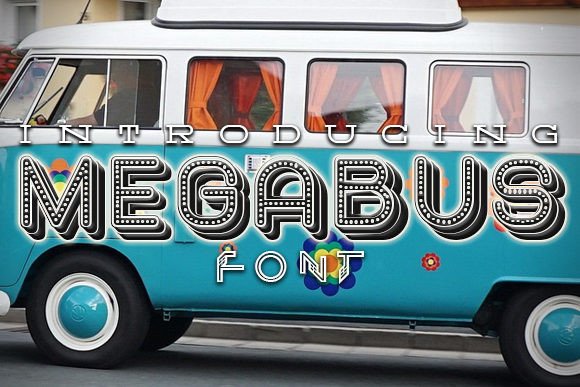
Megabus: A Retro Typeface with Modern Creativity
If you're on the lookout for a typeface that effortlessly blends nostalgia with contemporary flair, Megabus might just be your next favorite design tool. This retro-inspired font brings a unique character to any project it graces, making it ideal for creators who want to stand out without shouting. Whether you're designing posters, flyers, logos, or web content, Megabus adds an artistic edge that’s both eye-catching and versatile.
Megabus is more than just a throwback to the past—it's a well-crafted font that combines boldness with readability. Its retro aesthetic includes subtle imperfections and hand-drawn qualities that give it warmth and personality. Unlike many other vintage-style fonts that can feel too ornate or difficult to read at smaller sizes, Megabus maintains a balance between charm and clarity, which makes it suitable for a wide range of applications.
One of the standout features of Megabus is its adaptability. The font works equally well in digital formats as it does in print, allowing designers to use it across multiple platforms without compromising quality. It also supports a broad set of characters, including ligatures and alternate glyphs, giving users creative control over how they present their text.
Retro Meets Modern
While Megabus draws from classic typography styles—think 1950s signage and mid-century magazine layouts—it’s been optimized for modern usage. This means it’s not only visually appealing but also functional. Designers can rest assured that the font will render cleanly on screens and scale beautifully for large-format printing.
With its distinctive style, Megabus opens up a world of creative possibilities. Here are some practical ways to incorporate this font into your work:
Imagine a local jazz club promoting an upcoming performance. Using Megabus for the event name gives the poster an authentic, old-school ambiance that complements the venue's vibe. Similarly, a food blogger launching a new recipe series could use the font to create a themed banner that feels like it belongs in a 1960s diner menu.
For educators, Megabus can bring a fresh twist to classroom materials. A history teacher creating a presentation about the 1960s counterculture movement might find that using this font enhances the thematic consistency of their slides.
To get the most out of Megabus, consider these best practices:
1. Use Sparingly: While it’s tempting to go all-in with a bold font like Megabus, it’s most effective when used as an accent. Save it for headlines, call-to-action buttons, or key phrases to avoid overwhelming your audience.
2. Pair Thoughtfully: Complement Megabus with a neutral, easy-to-read font for body copy. Think Helvetica, Arial, or Lato. This contrast helps guide the viewer’s eye and keeps the message clear.
3. Play with Color: Megabus really comes alive when paired with muted earth tones or bright retro colors. Try mustard yellow, burnt orange, or deep navy blue to enhance its vintage appeal.
4. Experiment with Layout: Because of its dynamic nature, Megabus looks great when used creatively in layout design. Consider rotating it slightly, layering it with textures, or even combining it with hand-drawn elements.
Depending on your target audience, you can adjust how you apply Megabus. For example:
When working with Megabus, keep these tips in mind to ensure your designs remain effective and professional:
Balance is Key: Megabus has strong visual presence, so pairing it with minimalist backgrounds or simple color schemes often yields the best results. Avoid cluttering the design with too many elements, as this can detract from the font's impact.
Stay Consistent: If you choose to use Megabus in your brand, stick to it throughout your collateral. This creates a recognizable style and reinforces your brand identity across different mediums.
Test for Legibility: Before finalizing a design, test Megabus in various sizes and contexts. Ensure that it remains readable, especially when used for subheadings or short captions.